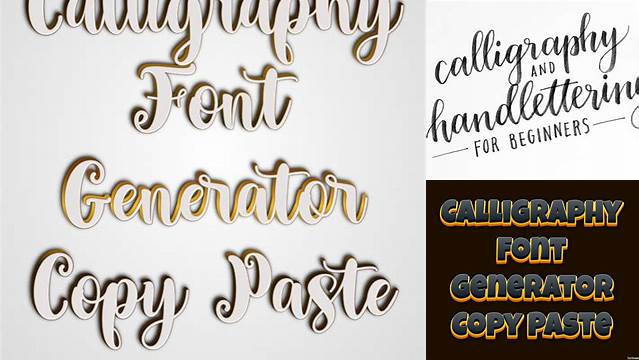
Free Calligraphy Font Generator: Copy & Paste!
Hey guys! Ever wanted to add a touch of elegance to your social media posts, invitations, or just about anything? Well, you're in the right place! Let's dive into the world of free calligraphy font generators that let you copy and paste beautiful text wherever you need it. It's easier than you think, and we're going to cover everything you need to know.
1. Understanding Calligraphy Font Generators
So, what exactly are these free calligraphy font generators? They're basically online tools that take your regular text and transform it into fancy calligraphy styles. The best part? You don't need to download or install anything! Just type, generate, copy, and paste. It's super convenient, especially when you're on the go and need something quick and stylish. Think of them as your personal digital calligrapher, ready to jazz up your messages anytime, anywhere.
2. Benefits of Using a Free Calligraphy Font Generator
Why bother using a free calligraphy font generator? Well, there are tons of reasons! First off, they save you a lot of time. Learning actual calligraphy takes practice, but with these generators, you get instant results. Plus, they're free! No need to invest in expensive software or hire a calligrapher. And let's not forget the versatility β you can use these fonts for everything from Instagram captions to wedding invitations. Itβs a budget-friendly and efficient way to add a touch of class to your projects.
3. How to Use a Calligraphy Font Generator: A Step-by-Step Guide
Alright, let's get down to business. How do you actually use a free calligraphy font generator? It's as easy as 1-2-3! First, find a generator online (I'll share some of my favorites later). Next, type your text into the input box. Then, browse through the different font styles and choose the one you like best. Finally, copy the generated text and paste it wherever you need it. Boom! You've got beautiful calligraphy text in seconds.
4. Top Free Calligraphy Font Generators Online
5. Calligraphy Font Styles Available
The beauty of these free calligraphy font generators is the sheer variety of styles. You'll find everything from elegant and flowing scripts to more modern and edgy designs. Some popular styles include brush lettering, copperplate, Spencerian, and gothic calligraphy. Whether you're going for a classic, romantic look or something more contemporary, you're sure to find a font that fits your vibe. It's all about experimenting and finding what speaks to you.
6. Copy and Paste Calligraphy Font for Social Media
Social media is where these free calligraphy font generators really shine. Imagine adding a stunning calligraphy caption to your Instagram post or a stylish bio to your Twitter profile. It's a fantastic way to stand out from the crowd and add a touch of personality to your online presence. Just copy the generated text and paste it into your social media platform of choice. Easy peasy!
7. Using Calligraphy Fonts for Invitations
Planning a wedding, birthday party, or other special event? Free calligraphy font generators can help you create beautiful and unique invitations without breaking the bank. Use them to add elegant headings, stylish details, or even personalized messages. It's a simple way to elevate your invitations and make them truly memorable. Your guests will be impressed by the attention to detail!
8. Calligraphy Font Generator Apps for Mobile
Want to generate calligraphy fonts on the go? No problem! There are plenty of free calligraphy font generator apps available for both iOS and Android. These apps let you create beautiful text right from your phone or tablet. Some popular options include Font Rush and Stylish Text. They're perfect for when you need to whip up something stylish while you're out and about.
9. Customizing Your Calligraphy Font
While free calligraphy font generators offer a lot of great styles, you might want to customize your text even further. Some generators let you adjust the size, color, and spacing of your fonts. You can also add special effects like shadows or gradients. Experiment with different settings to create a truly unique and personalized look. It's all about making the font your own!
10. Calligraphy Font and Text Symbols
Did you know you can also add text symbols to your calligraphy fonts? Things like hearts, stars, and arrows can add an extra touch of personality to your messages. Many free calligraphy font generators include options for adding these symbols. Just find the symbol you like and copy and paste it along with your calligraphy text. It's a fun way to make your messages even more expressive.
30. Tips for Choosing the Right Calligraphy Font
Choosing the right free calligraphy font generators is important and depends on your taste and the event. A good font choice is the difference between making something look professional versus something that doesn't.
So there you have it, guys! Everything you need to know about free calligraphy font generators. Now go forth and create some beautiful text! Have fun experimenting and adding a touch of elegance to your projects. Happy crafting!